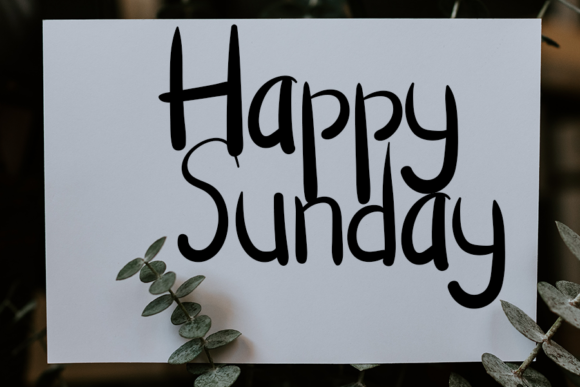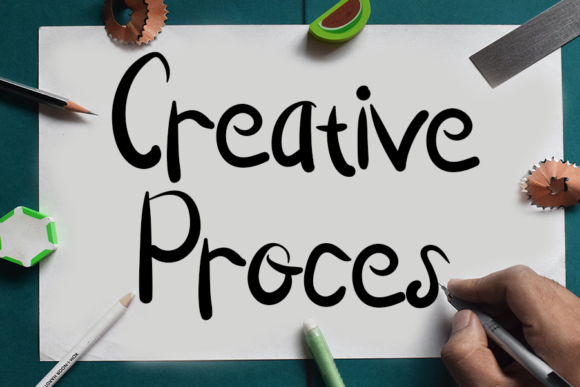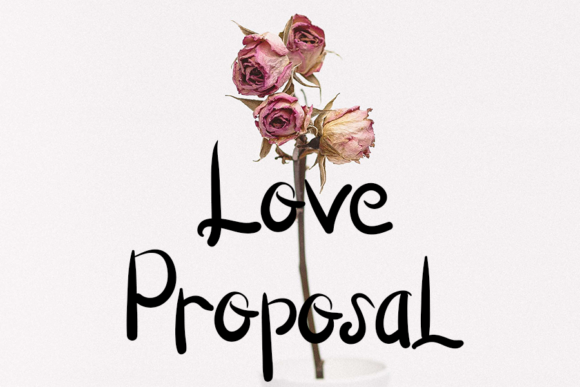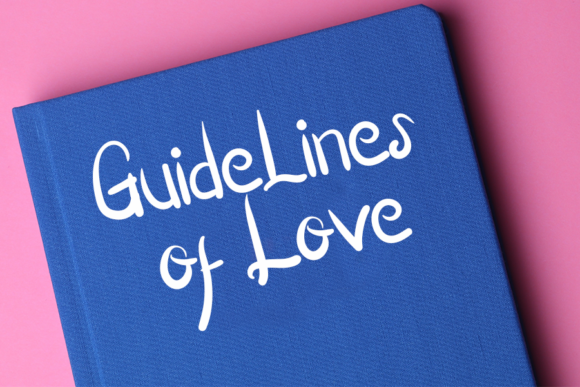
Happy Sunday Font: Elevate Your Designs with a Neat and Simple Display Font
Are you tired of using the same old fonts in your designs? Look no further than the Happy Sunday Font, a fresh and exciting display font that’s perfect for adding a touch of personality to your creative projects. In this article, we’ll take a closer look at the Happy Sunday Font, its features, and how you can use it to take your designs to the next level.
What is Happy Sunday Font?
Happy Sunday Font is a neat and simple display font that’s designed to make your designs stand out. With its clean lines and elegant curves, this font is perfect for a wide range of projects, from branding and advertising to crafting and DIY tutorials. Whether you’re a professional designer or a crafty hobbyist, Happy Sunday Font is a versatile and easy-to-use font that’s sure to become a favorite in your collection.
Key Features of Happy Sunday Font
- Neat and Simple Design: Happy Sunday Font features a clean and simple design that’s easy to read and looks great in a variety of contexts.
- Display Font: This font is specifically designed as a display font, making it perfect for headlines, titles, and other attention-grabbing elements in your designs.
- Highly Versatile: Happy Sunday Font can be used in a wide range of projects, from digital designs to print materials, and everything in between.
- Easily Readable: Despite its elegant design, Happy Sunday Font is highly readable, even at smaller sizes.
How to Use Happy Sunday Font in Your Designs
Happy Sunday Font is incredibly easy to use and can be incorporated into your designs in a variety of ways. Here are a few ideas to get you started:
- Branding and Logo Design: Use Happy Sunday Font to create a unique and memorable logo for your business or brand.
- Social Media Graphics: Add a touch of personality to your social media graphics with Happy Sunday Font.
- DIY Tutorials and Crafts: Use Happy Sunday Font to add a professional touch to your DIY tutorials and craft projects.
- Advertising and Marketing Materials: Happy Sunday Font is perfect for use in advertising and marketing materials, such as brochures, flyers, and posters.
Why Choose Happy Sunday Font?
With so many fonts to choose from, why should you choose Happy Sunday Font? Here are just a few reasons:
- Unique and Eye-Catching: Happy Sunday Font is a unique and eye-catching font that’s sure to grab attention.
- Easy to Use: This font is incredibly easy to use and can be incorporated into your designs in just a few minutes.
- Highly Versatile: Happy Sunday Font can be used in a wide range of projects and contexts.
- Clean and Elegant Design: The clean and elegant design of Happy Sunday Font makes it perfect for a wide range of designs, from modern and trendy to classic and sophisticated.
In conclusion, Happy Sunday Font is a neat and simple display font that’s perfect for adding a touch of personality to your designs. With its clean lines, elegant curves, and highly versatile design, this font is sure to become a favorite in your collection. Whether you’re a professional designer or a crafty hobbyist, Happy Sunday Font is a great choice for any project. So why wait? Download Happy Sunday Font today and start creating stunning designs that stand out from the crowd!